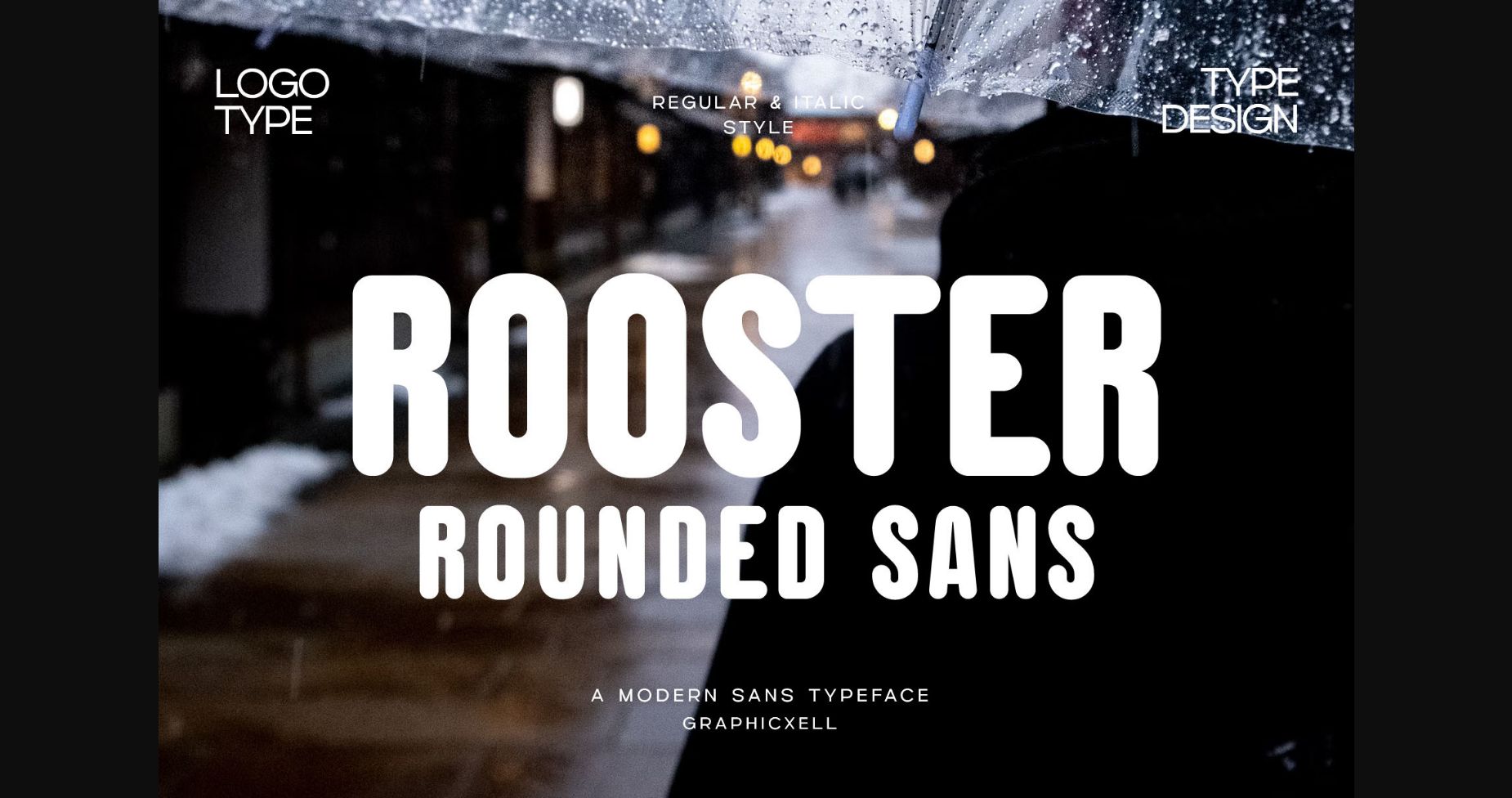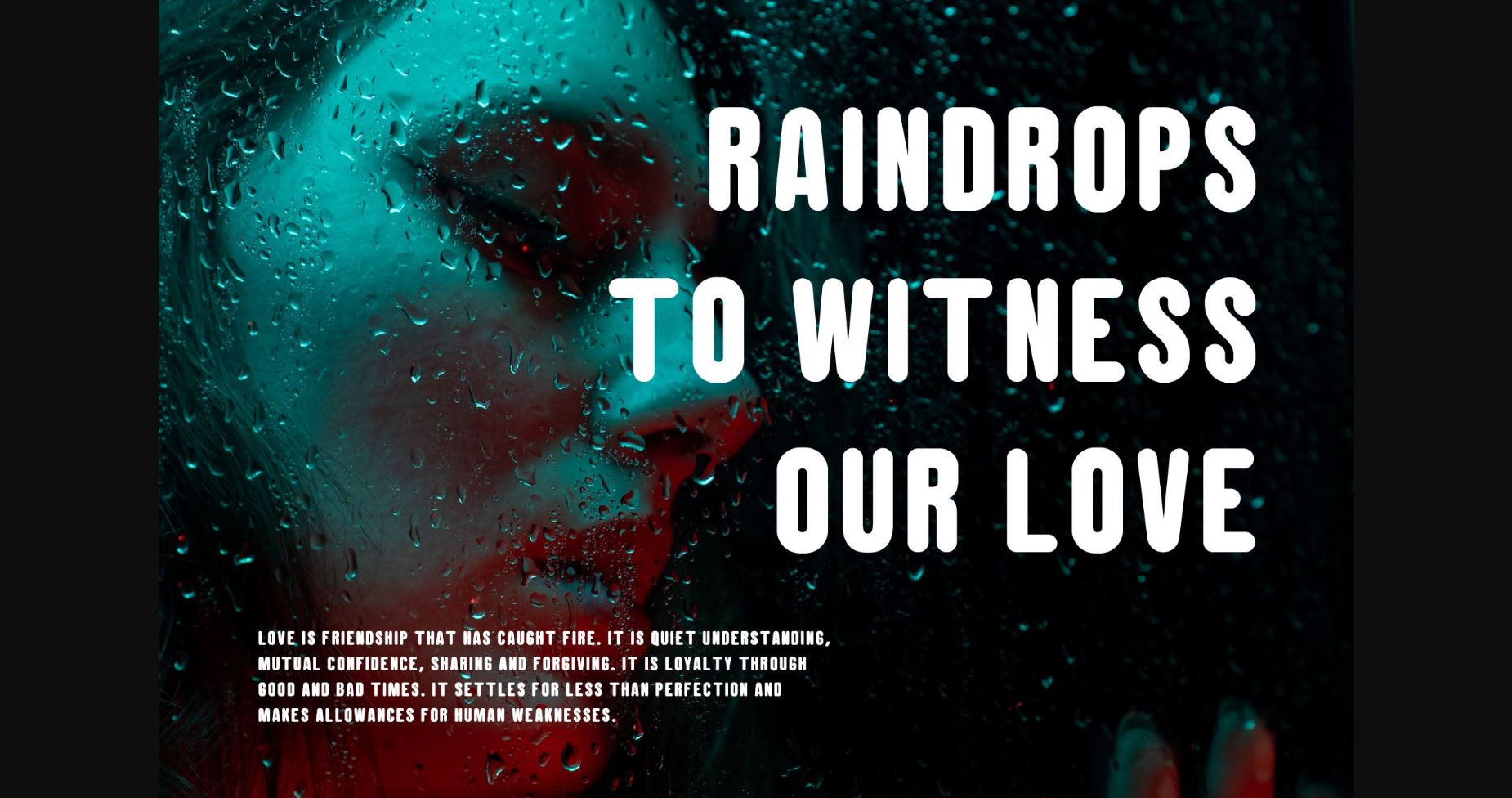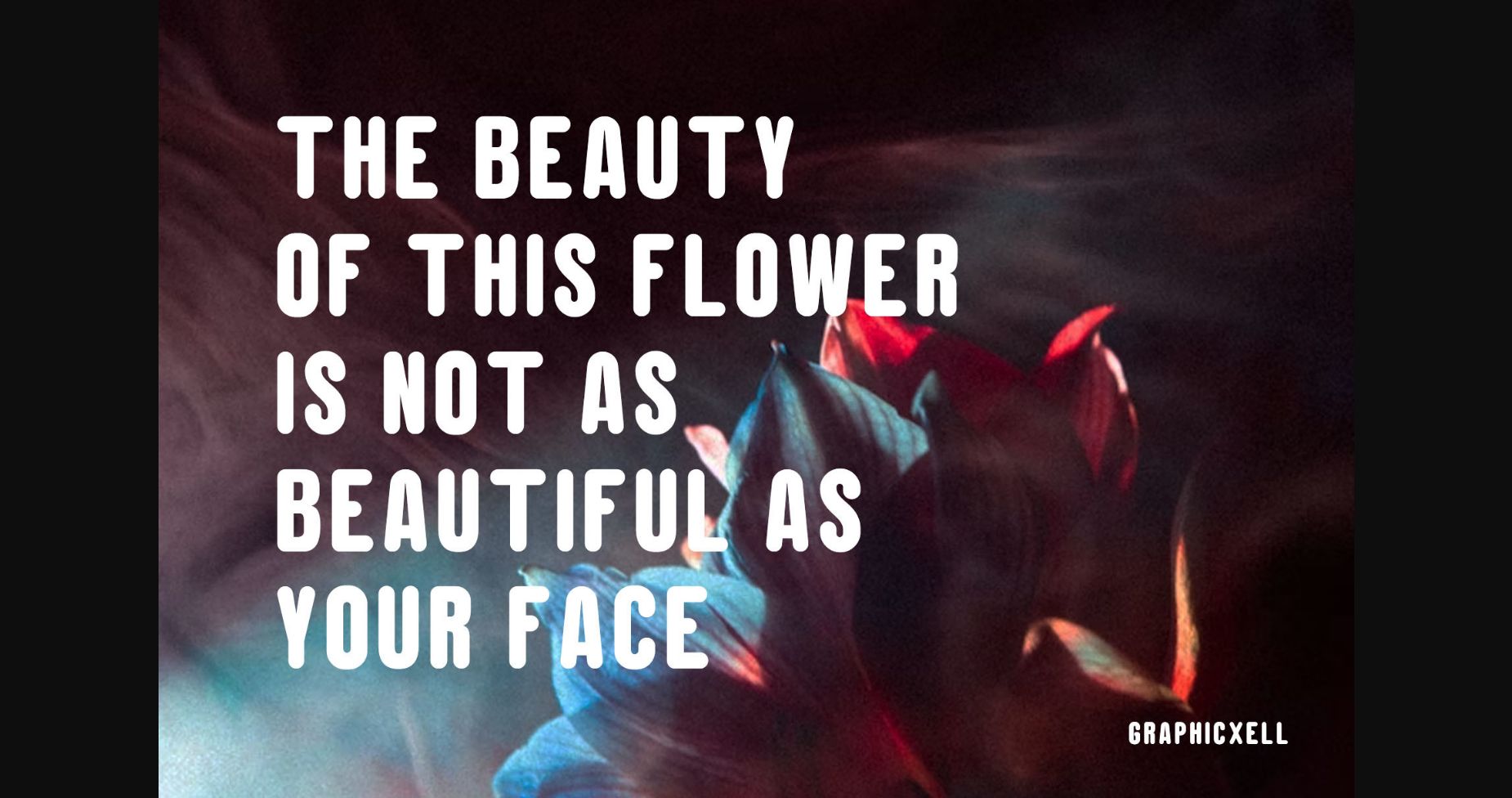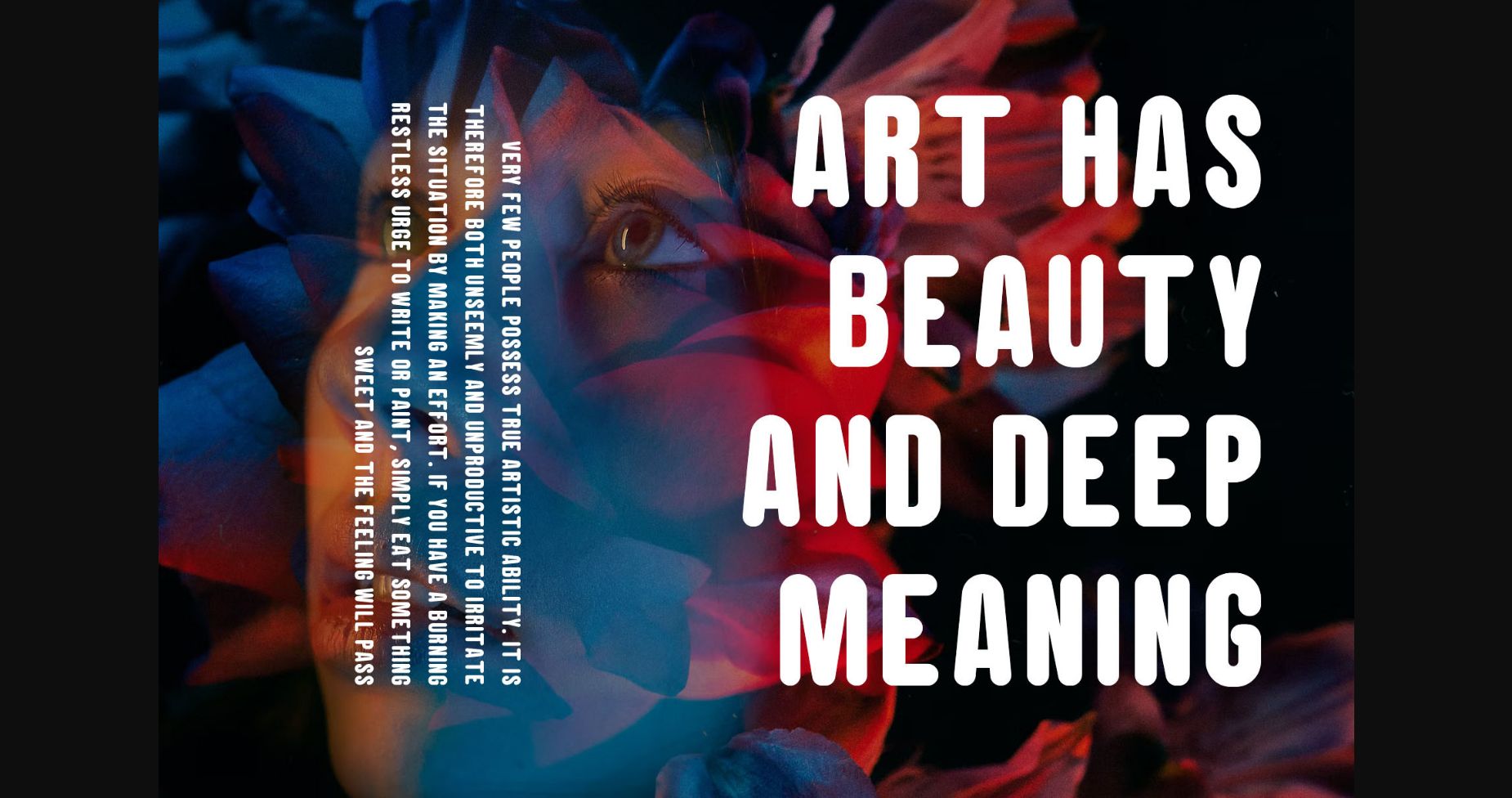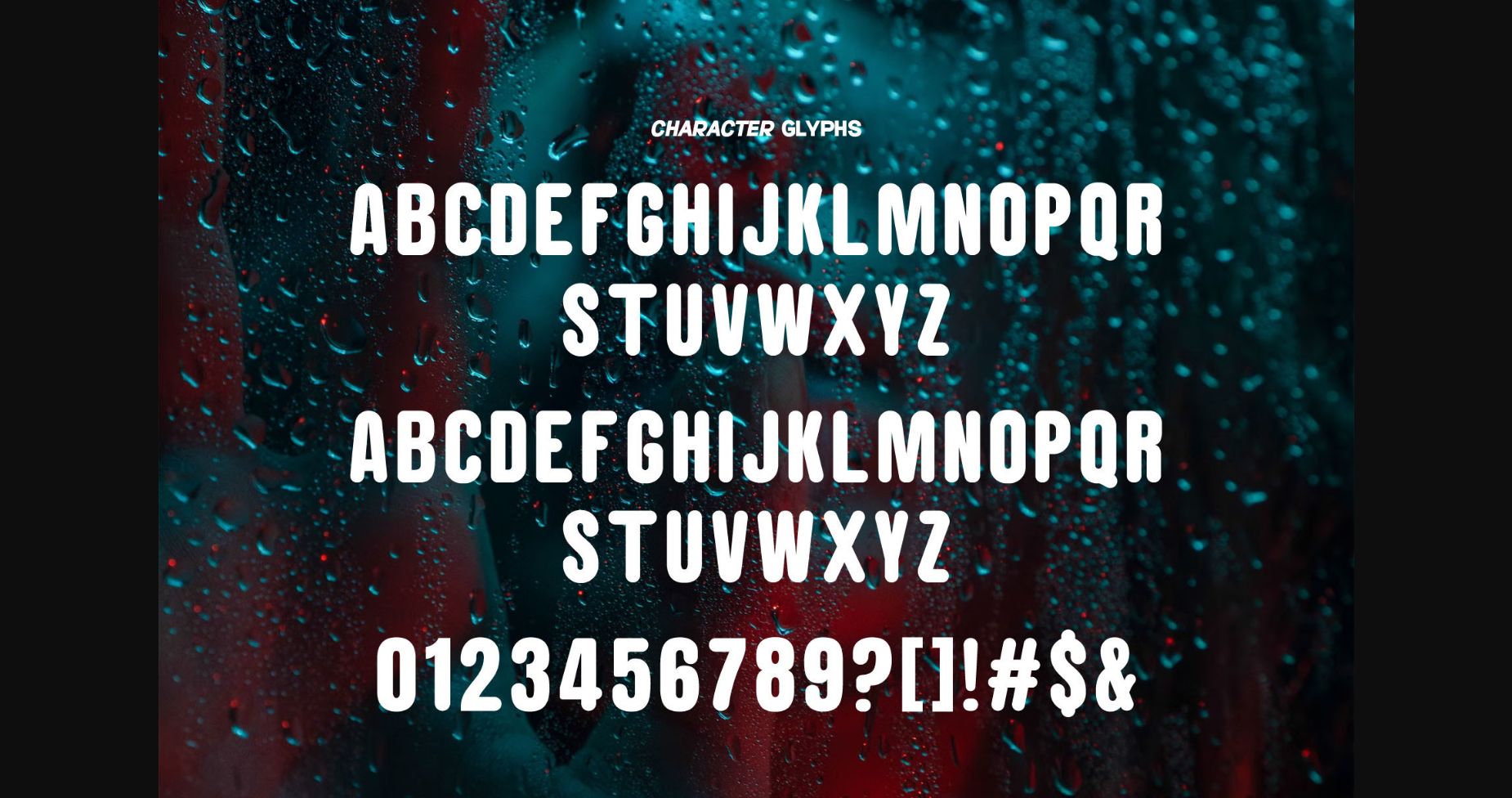
Rooster Font
About Rooster Font
Rooster is a modern and exquisite twist to the classic sans-serif style with its rounded and polished design. Its soft curves and clean lines strike the perfect balance between friendliness and professionalism, making it ideal for various design projects. Bring a touch of contemporary and lighthearted flair to your work with this versatile typeface.